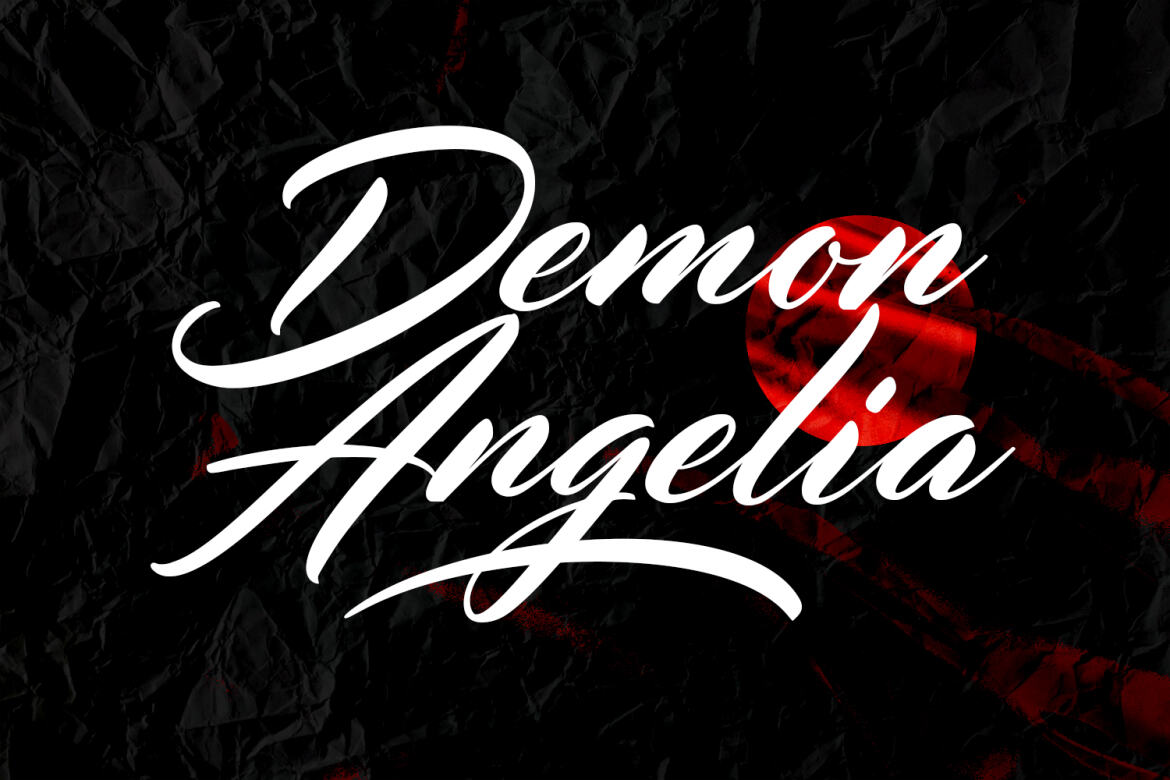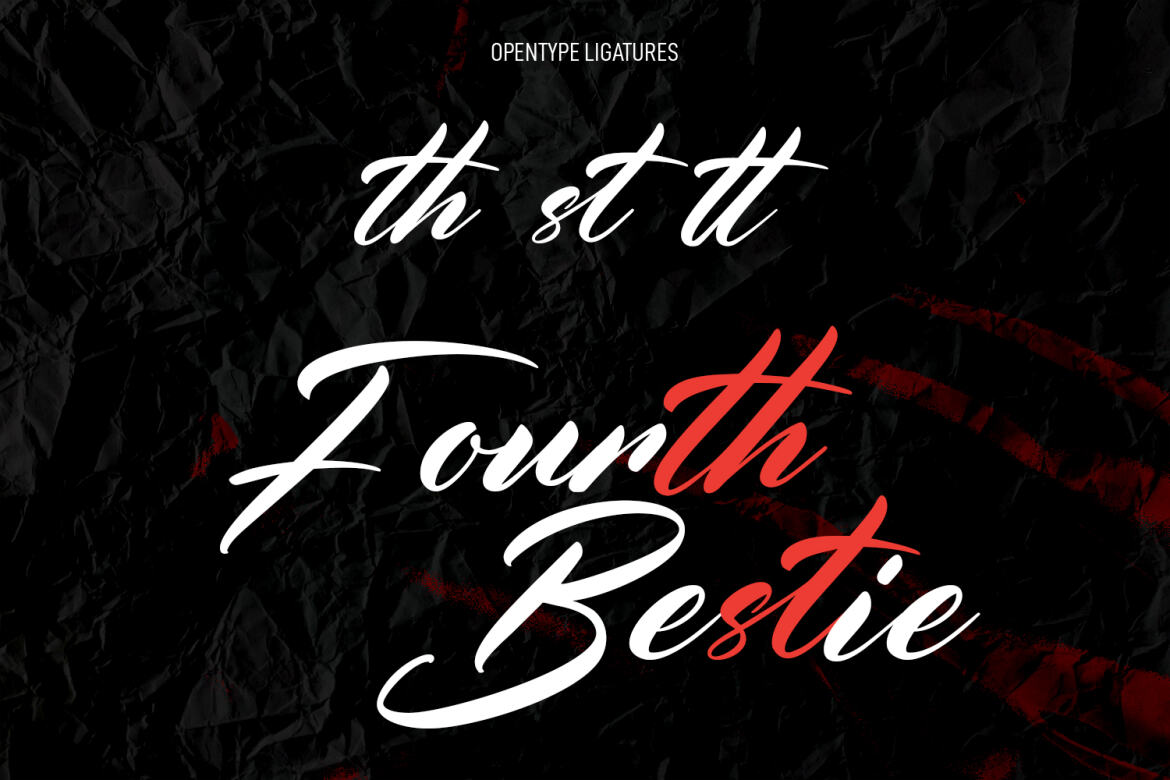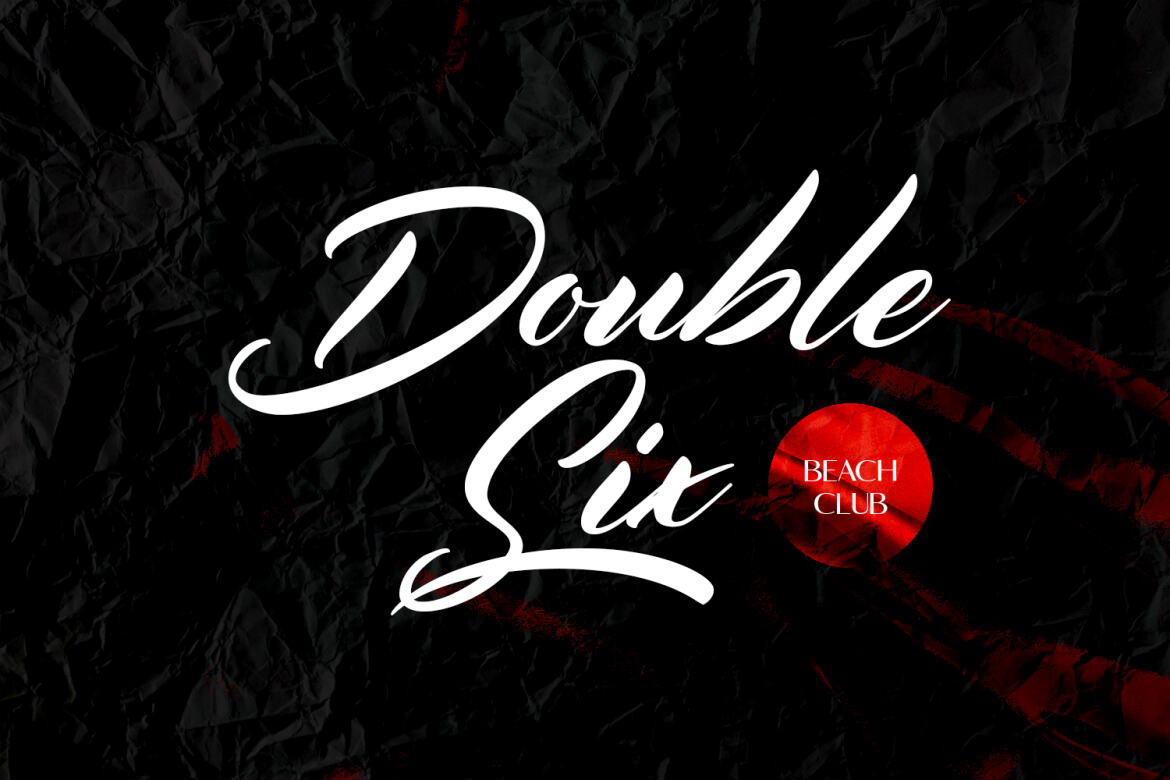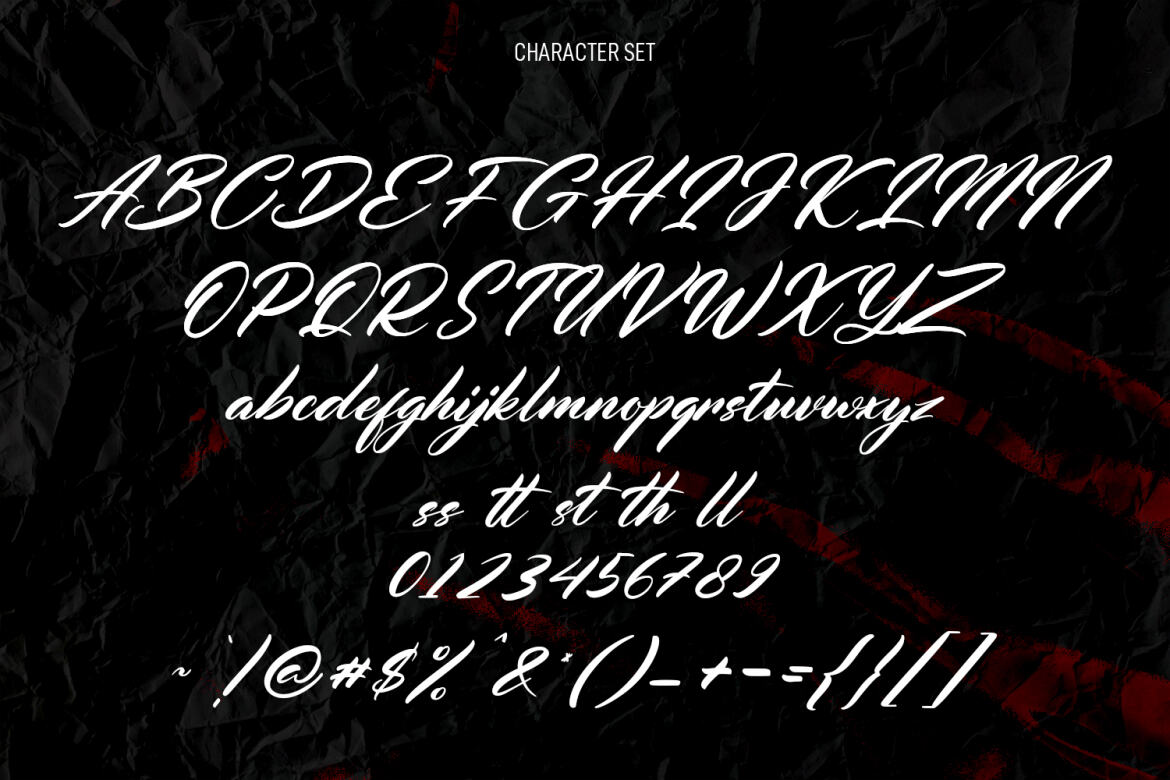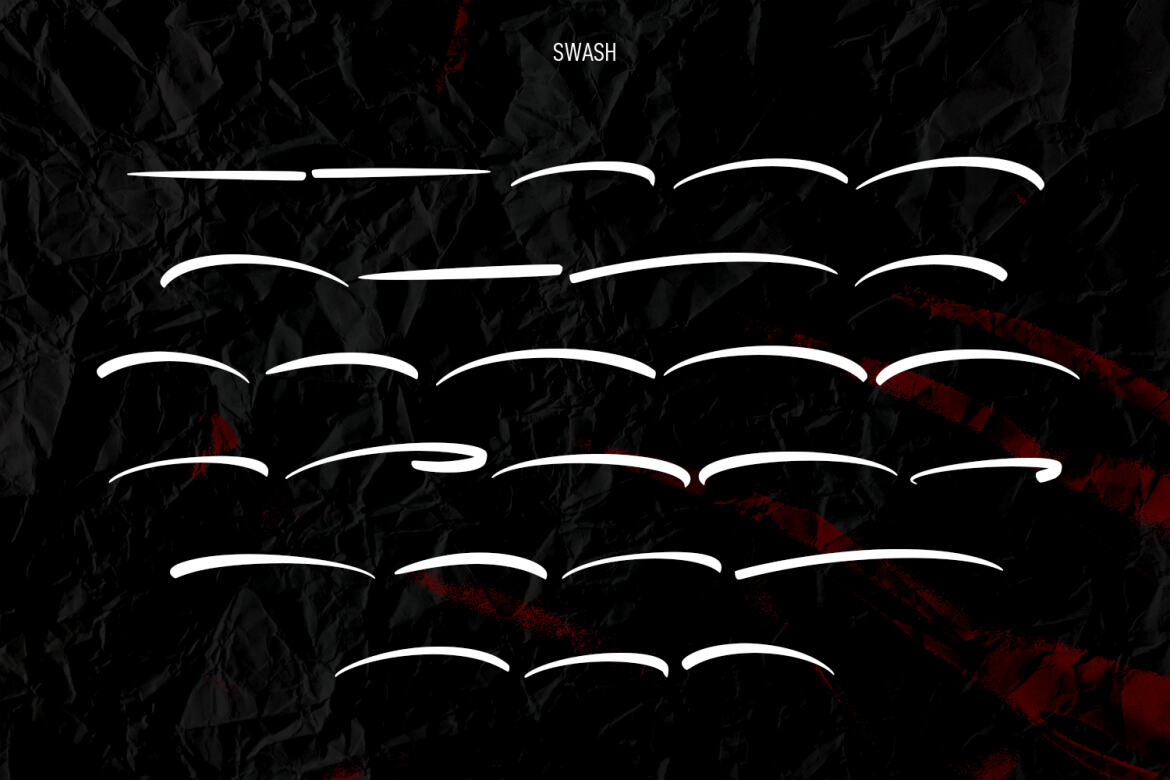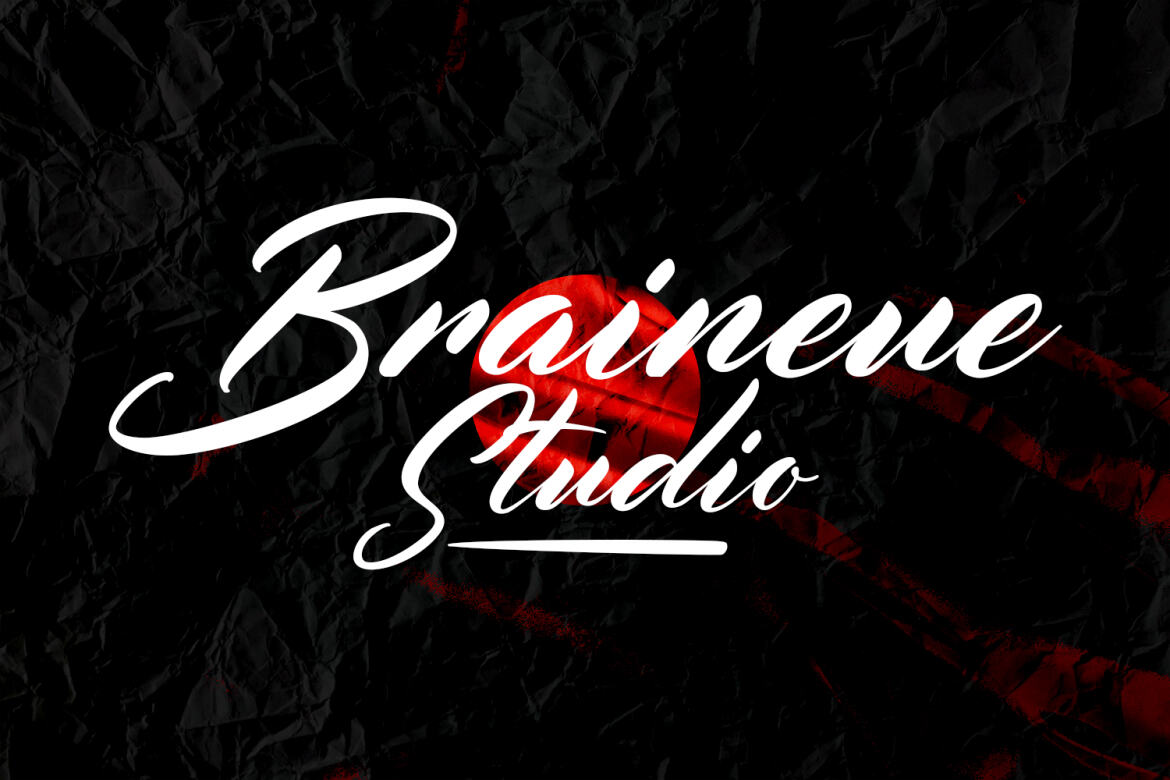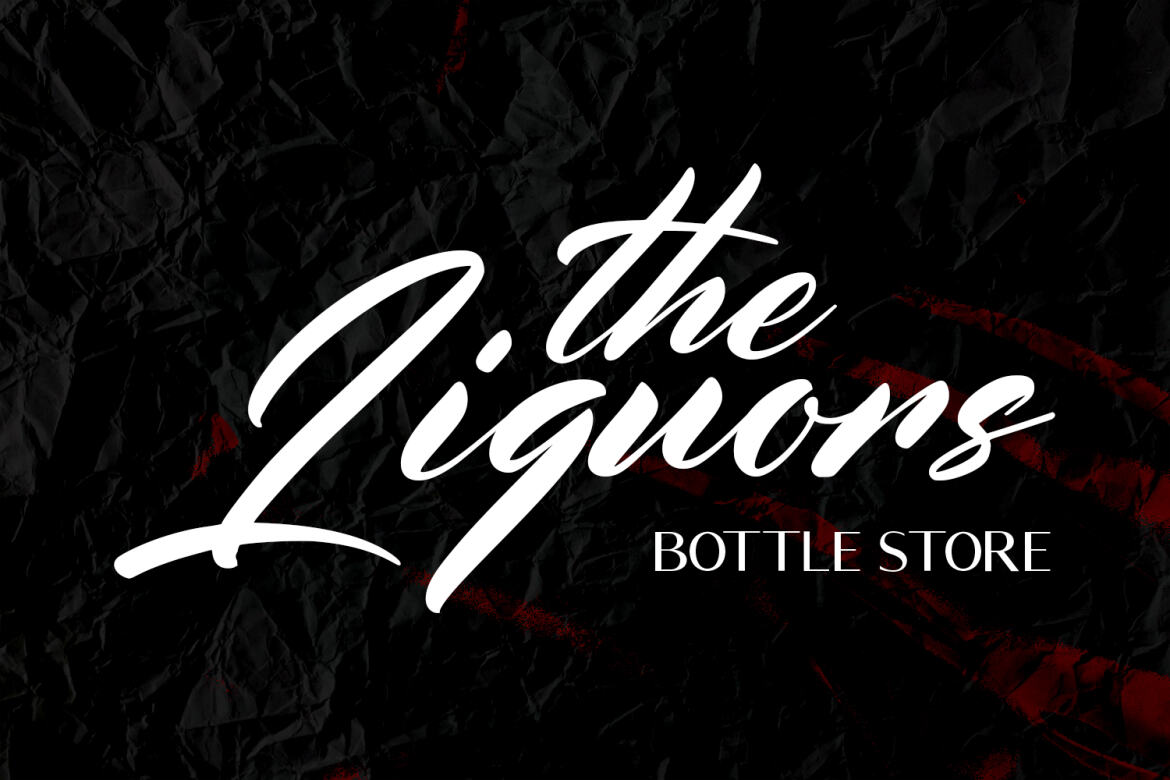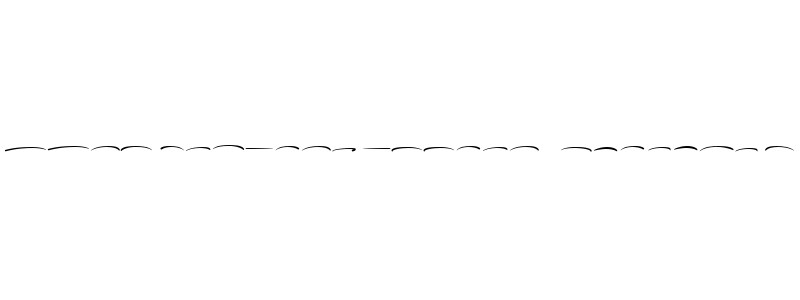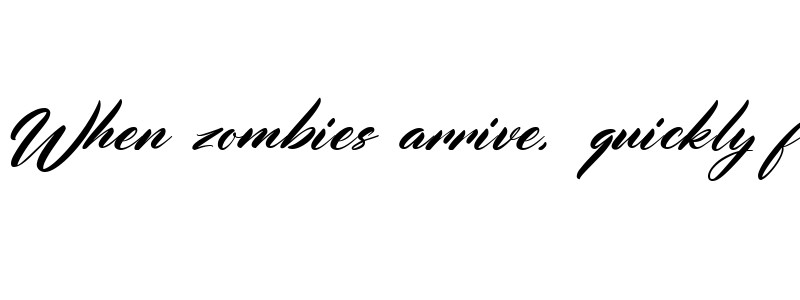
Corynette Signature FREE Script Font
Corynette Swash
Corynette
Corynette is a fancy handwritten script font. With medium contrast stroke, fun character with a bit of ligatures and alternates. To give you an extra creative work. Corynette font support multilingual more than 100+ language. This font is good for logo design, Social media, Movie Titles, Books Titles, a short text even a long text letter and good for your secondary text font with sans or serif. Make a stunning work with Corynette font.